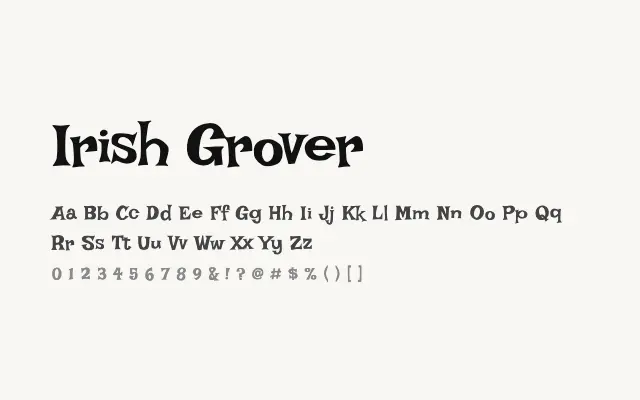
Irish Grover
A rough, jovial display typeface with strong retro charm and limited but committed personality.
Irish Grover channels the spirit of hand-painted signage and vintage poster lettering, with irregular stroke edges and an exuberant bounce that makes it immediately expressive. Its single weight and display-only nature restrict it to headlines, posters, and novelty branding where character outweighs versatility. Best deployed sparingly where a warm, informal, retro tone is the primary requirement.
Irish Grover is a bold, informal display typeface with rough, hand-lettered characteristics and a distinctly playful, retro personality. It is a single-weight novelty font with limited practical application beyond decorative headline use.